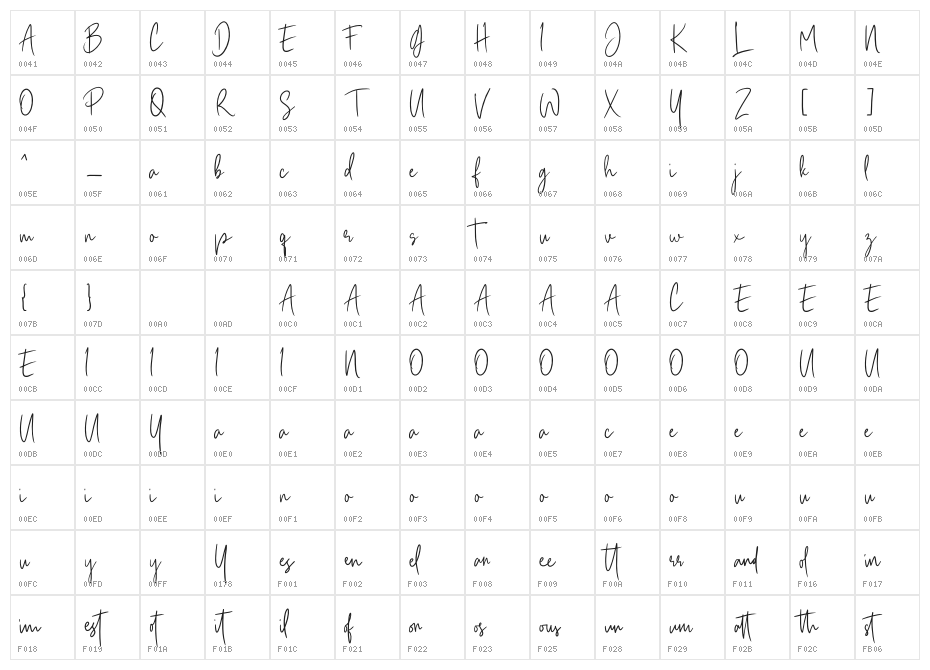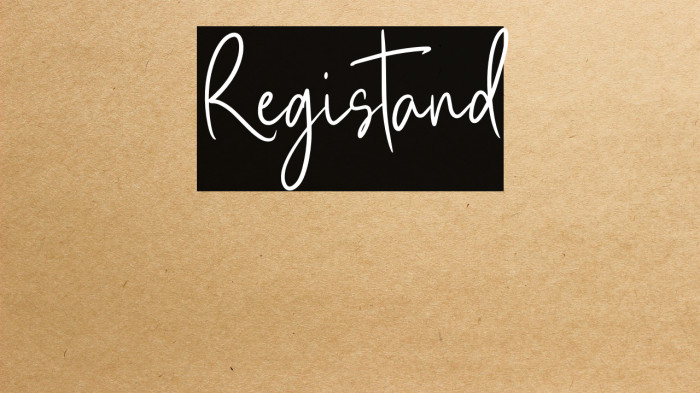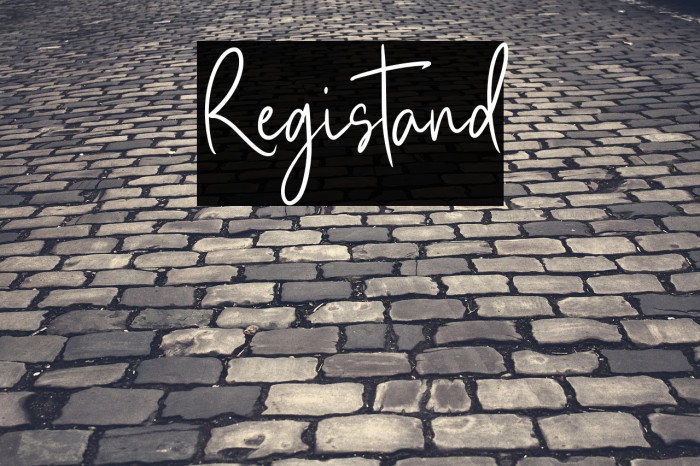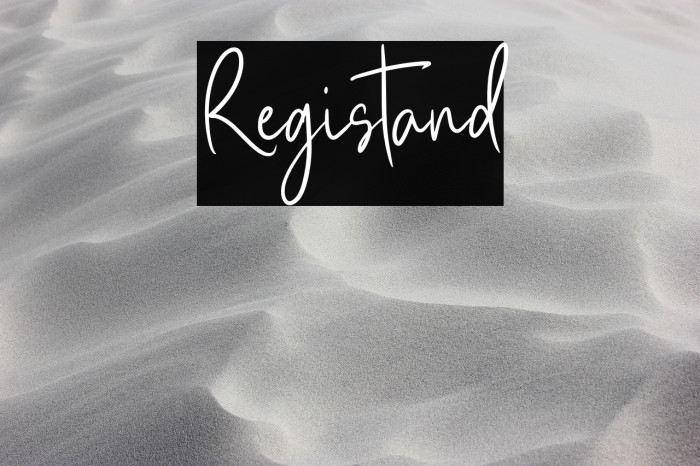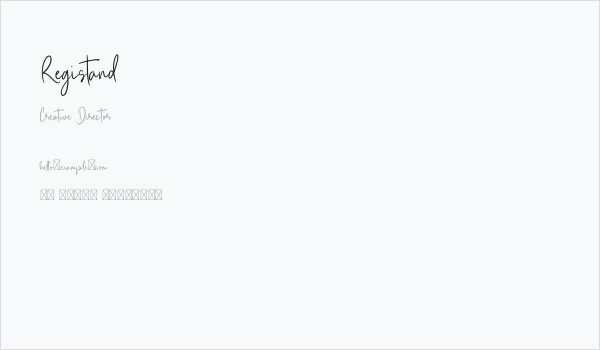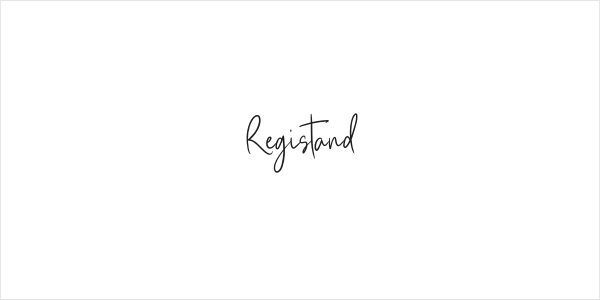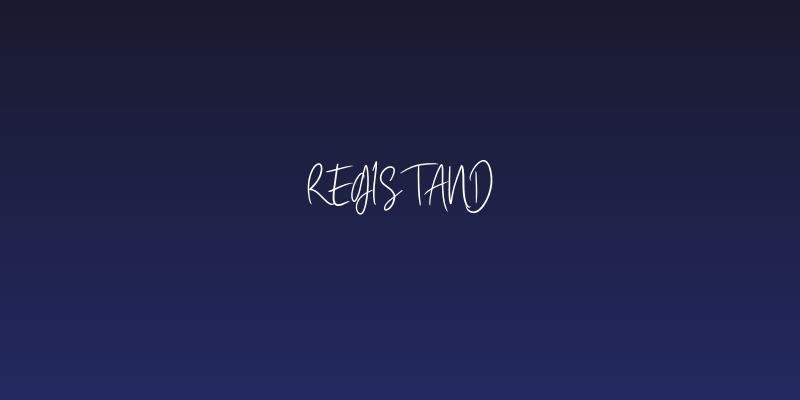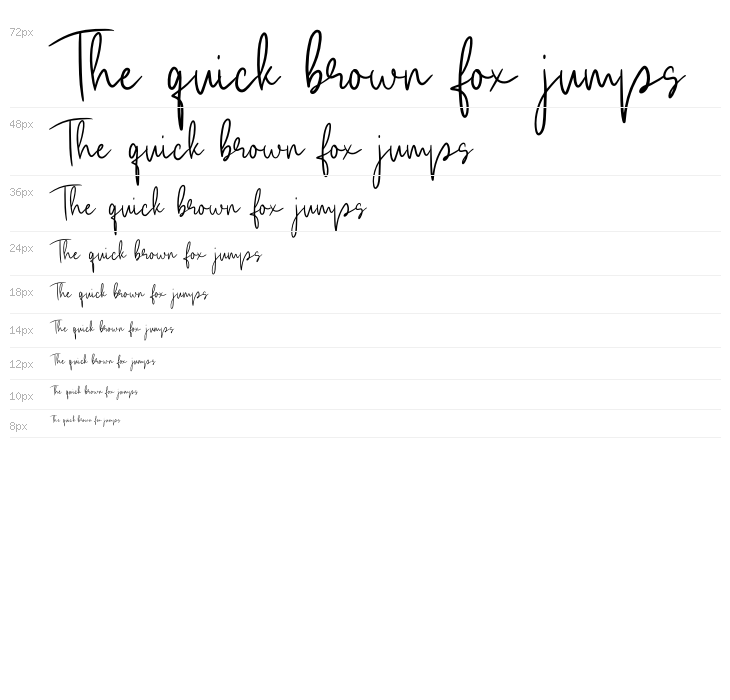
Registand Font
Registand Description
This font features an elegant, handwritten style with a flowing, cursive appearance. The uppercase letters are tall and slender, with a playful, artistic flair that adds a touch of sophistication. The lowercase letters maintain a consistent style, with smooth curves and a natural, fluid motion. The overall design is light and airy, with a sense of movement and grace. The font is perfect for projects that require a personal, human touch, such as invitations, greeting cards, or branding materials. Its unique style makes it stand out, while still being legible and versatile.
Overall StyleElegant, Artistic
Use CaseHeadlines, Artistic projects, Personal branding
Proposed ProjectsIdeal for invitations, greeting cards, personal branding, and artistic projects.